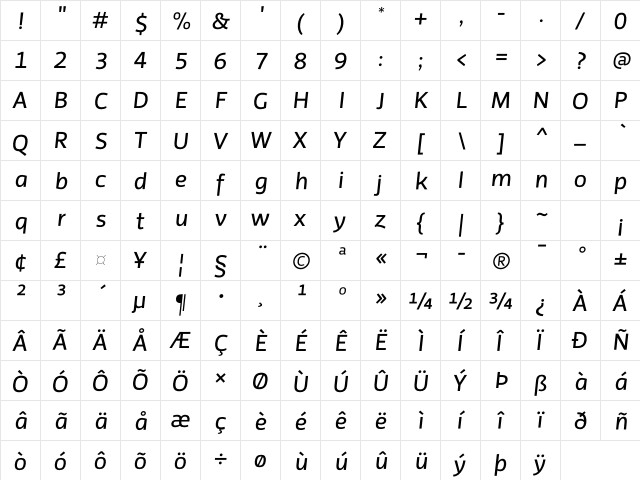
PrivaTwoItalicPro Regular
Design Context for PrivaTwoItalicPro Typeface
PrivaTwoItalicPro is a composed and adaptable typeface that performs quietly and consistently across a wide range of design contexts. The slanted form adds forward momentum and visual energy.
Pro Tip: Use PrivaTwoItalicPro for emphasis, pull quotes, and subheadings where its slanted energy can add rhythm to the layout.